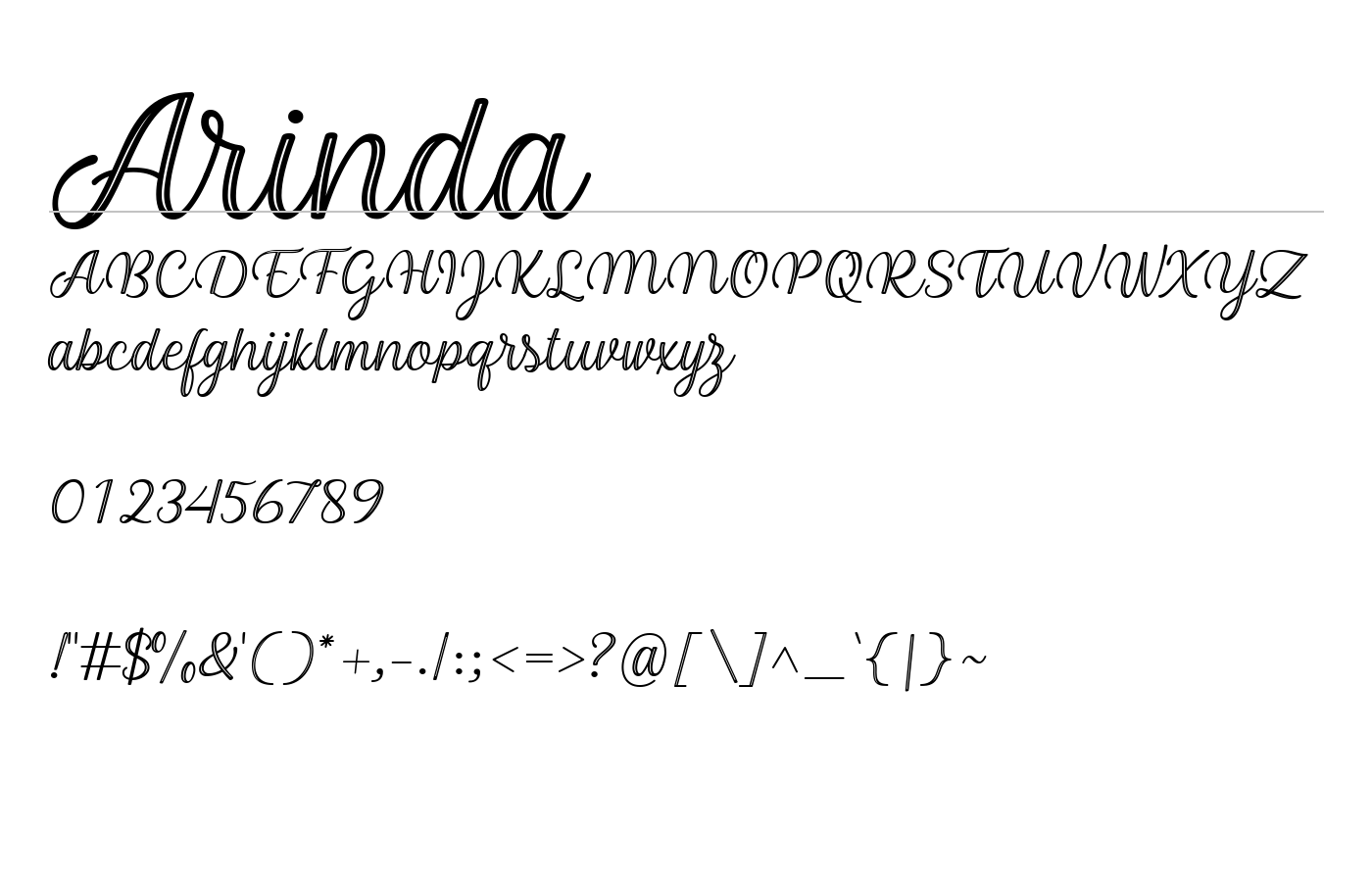
Arinda is an elegant script font characterized by its smooth, flowing strokes and delicate thin lines, giving it a refined and graceful feel. Its narrow, connected letterforms with gentle curves make it perfect for use in sophisticated branding, invitations, and editorial projects that seek a touch of classic charm and femininity. This font works beautifully for headlines and display text, where its stylish personality can truly shine.
Arinda Font
About Arinda Font
| Font family | Arinda Font |
| Designer | Andrian Dehasta; Situjuh Nazara |